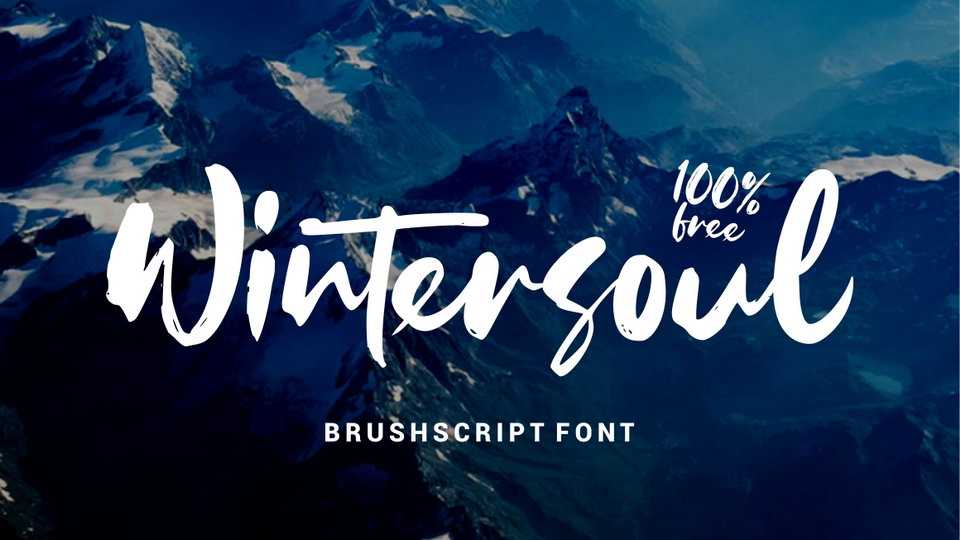
Download Wintersoul font, a beautiful hand painted brush script with a natural texture and a lot of swashes. Wintersoul font is great for logos, branding, packaging, apparel, social media, posters, banners and more.